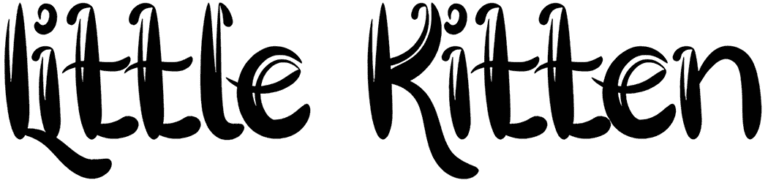
Bigfoot Cute Font
Bigfoot Cute is an awesome fancy font, offering three versions that help you in various situations. This fire font seems entertaining to the viewers and makes them stare.
Besides, you may use the Bigfoot Cute for posters, prints on T-shirts, and animations, while it only supports a mixture of lowercase and uppercase letters. This incredible font’s letters have smooth edges designed with fire, creating an action vibe. So give it a try and enjoy.